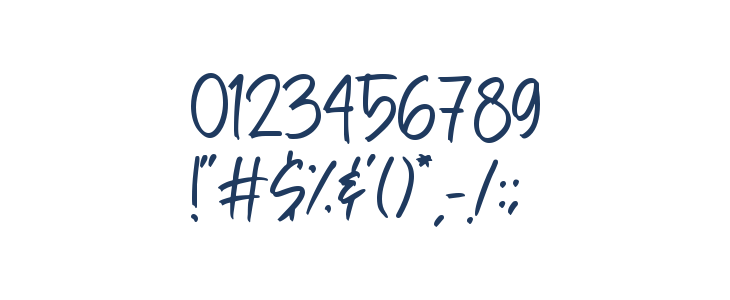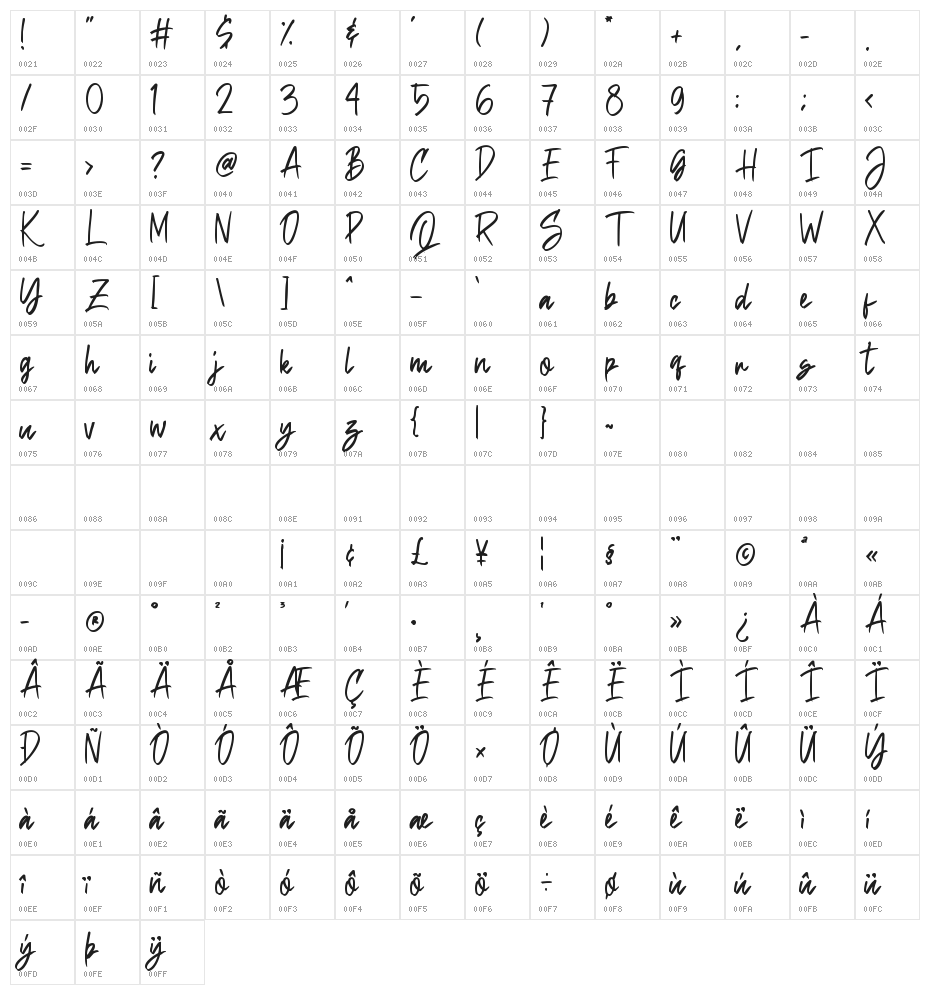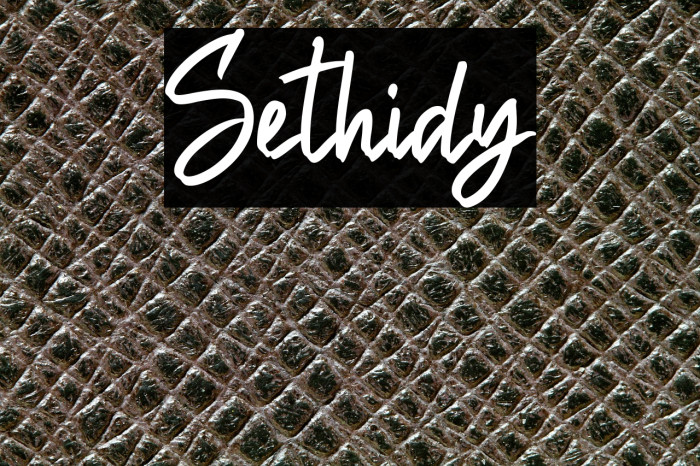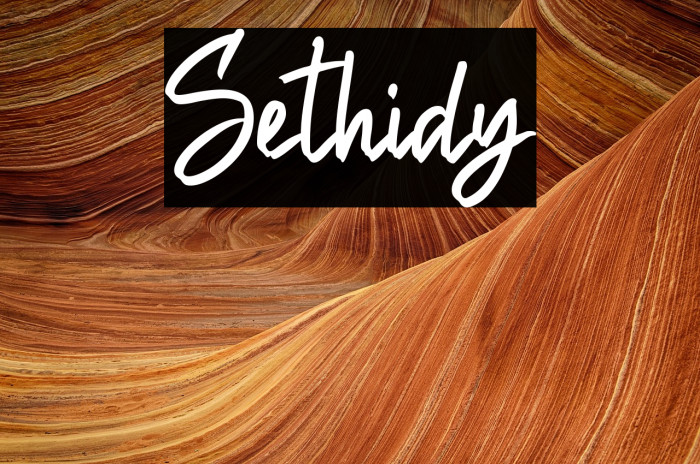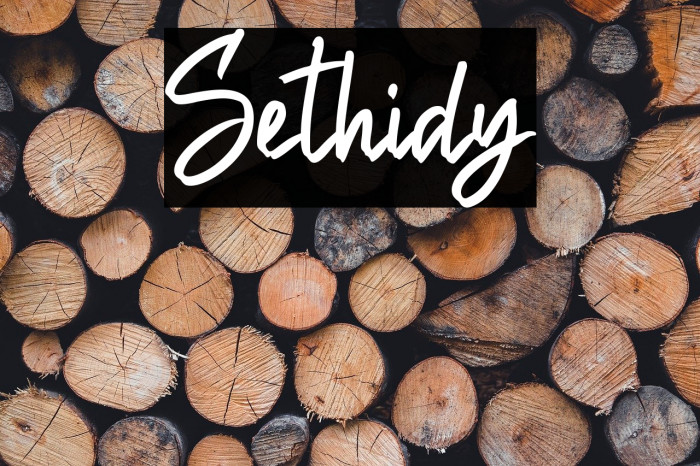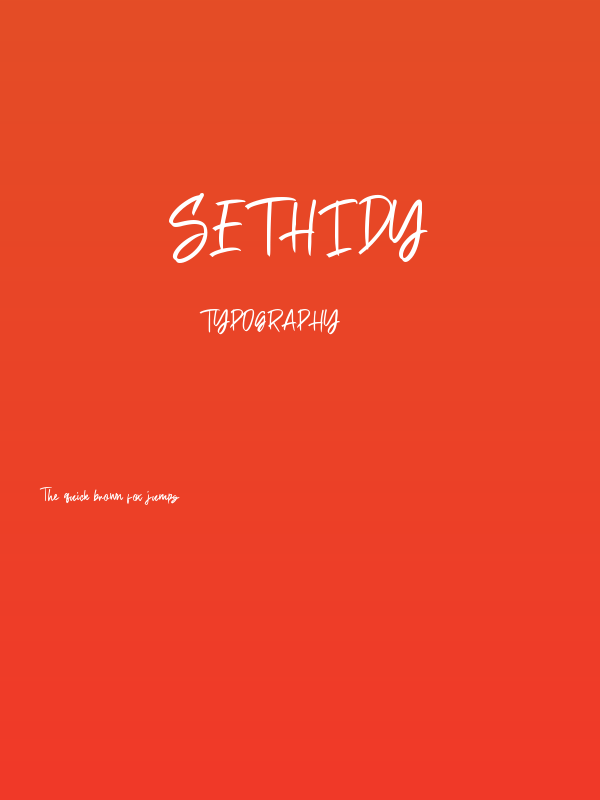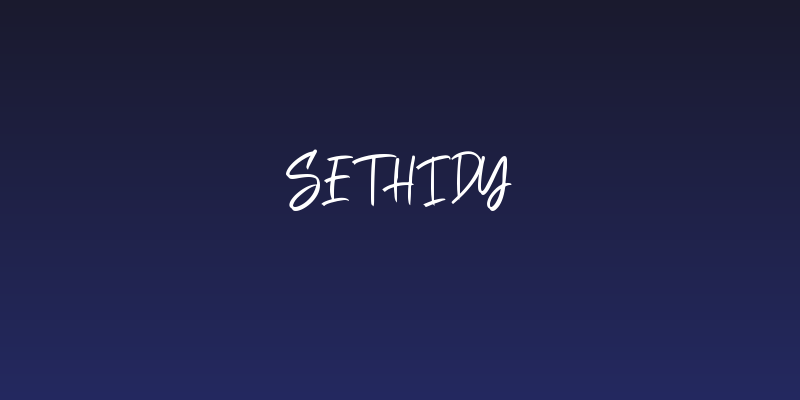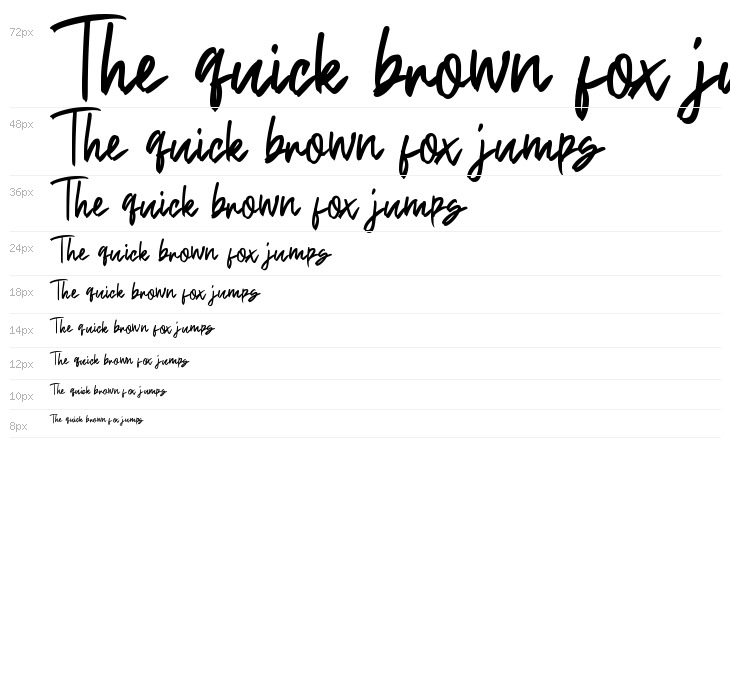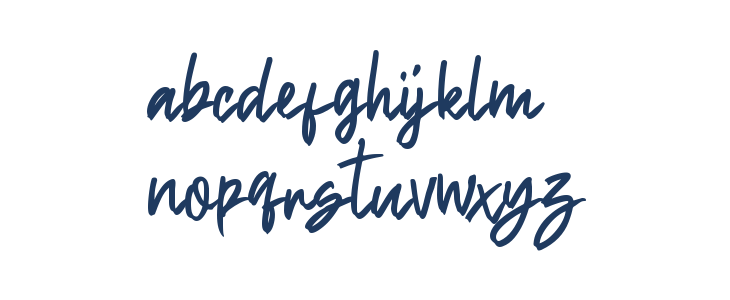
Sethidy Font
Sethidy Description
This font exudes a lively and energetic vibe with its handwritten style. The letters are crafted with a casual flair, featuring a mix of thick and thin strokes that add a sense of movement and personality. The uppercase letters are bold and slightly slanted, while the lowercase letters maintain a consistent flow, enhancing readability. Numbers and special characters are designed to match the playful aesthetic, making them suitable for creative projects. The overall appearance is both modern and approachable, perfect for adding a personal touch to any design.
| Use Case | Logos, Headlines, Social Media |
| Proposed Projects | Ideal for greeting cards, invitations, social media graphics, and branding projects that require a personal touch. |